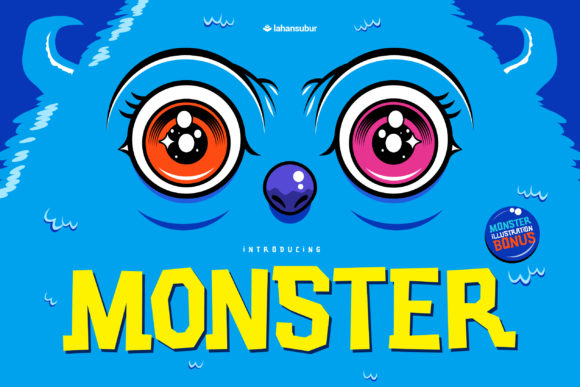
The Blue Monster Font: A Cute and Quirky Display Font to Elevate Your Designs
I’ll never forget the time I was working on a project for a children’s birthday party invitation. I had the design concept nailed, but something was missing – the perfect font. I scoured the internet, tried out dozens of fonts, but none seemed quite right. That was until I stumbled upon the Blue Monster Font. It was love at first sight! The playful, quirky vibe was exactly what I needed to bring the design to life.
So, what makes the Blue Monster Font so special? Here are a few things that I absolutely love:
- ✨ It’s incredibly versatile – perfect for titles, headings, and even short paragraphs.
- ✅ The font is highly legible, even at smaller sizes.
- 😍 The quirky, monster-inspired design adds a touch of whimsy to any project.
- 🤔 The font can be a bit over-the-top for very formal or professional projects.
- ⚠️ Some of the glyphs and special characters can be a bit finicky to access.
The Story Behind Blue Monster Font
The Blue Monster Font was created by a talented type designer who’s passionate about crafting unique, personality-driven fonts. Inspired by childhood memories of monster cartoons and playful storytelling, this font was designed to bring a smile to your face and a touch of magic to your designs.
| Font Name | Blue Monster Font |
| Is Blue Monster Font suitable for body text? | While Blue Monster Font is highly legible, it’s primarily designed for display purposes. For longer body text, you may want to choose a more traditional font. |
| Does Blue Monster Font support multiple languages? | Yes, Blue Monster Font supports a wide range of languages, including English, Spanish, French, and many more. |